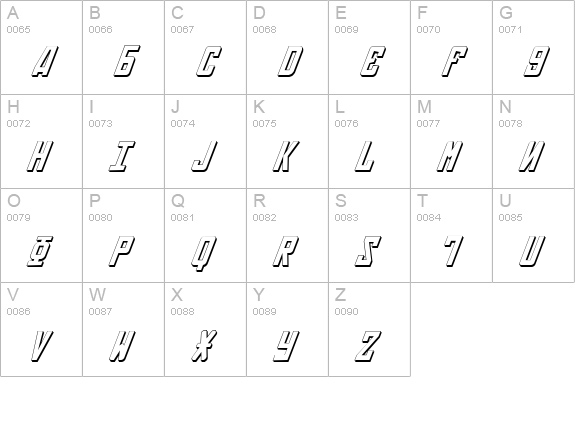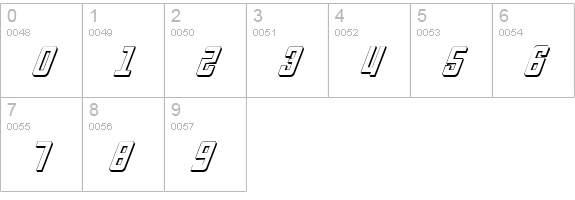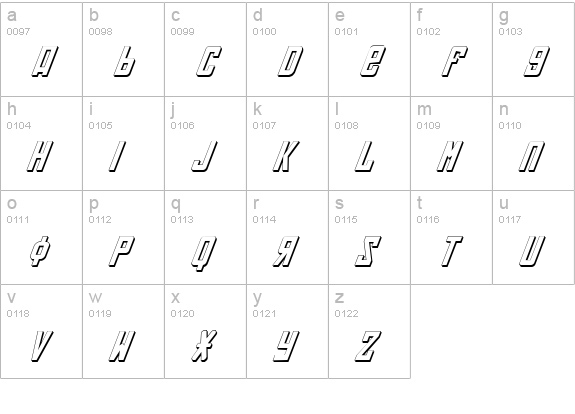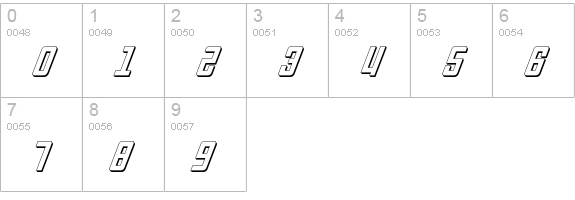
Soviet 3D Italic is a distinctive, italic variant in the Soviet typeface family \xE2\x80\x94 well suited to design and typography projects.
The Soviet 3D Italic font is a stunning typeface that effortlessly combines the boldness of 3D design with the elegance of italic letterforms. With its unique blend of depth and slant, this font exudes a sense of modernity and sophistication, making it perfect for a wide range of creative projects. Every curve and contour of the Soviet 3D Italic font has been meticulously crafted to create a visually striking and impactful design. The three-dimensional effect adds depth and dimension to each letter, giving them a sense of weight and presence. The bold and italic style further enhances the font's character, adding a touch of dynamism and flair. What sets the Soviet 3D Italic font apart is not just its exceptional aesthetics, but also its availability as a free download. FontsMarket.com proudly offers this font for free, allowing designers, artists, and enthusiasts to access and utilize its unique visual appeal without any cost. Whether you are working on a graphic design project, creating a logo, or simply looking to add a touch of sophistication to your personal documents, the Soviet 3D Italic font is a valuable resource that won't put a dent in your budget. With its clean and legible letterforms, this font is not only visually appealing but also highly versatile. It can be easily applied to a variety of design contexts, from digital platforms to print media, and everything in between. The Soviet 3D Italic font is ideal for headlines, titles, posters, branding materials, and any other creative project where you want to make a bold statement. Download the Soviet 3D Italic font for free at FontsMarket.com and unleash your creativity with this captivating typeface. Whether you are a professional designer or someone who simply appreciates the beauty of typography, this font will undoubtedly elevate your designs to new heights. Don't miss out on the opportunity to freely access this incredible font and add a touch of Soviet-inspired flair to your next project.